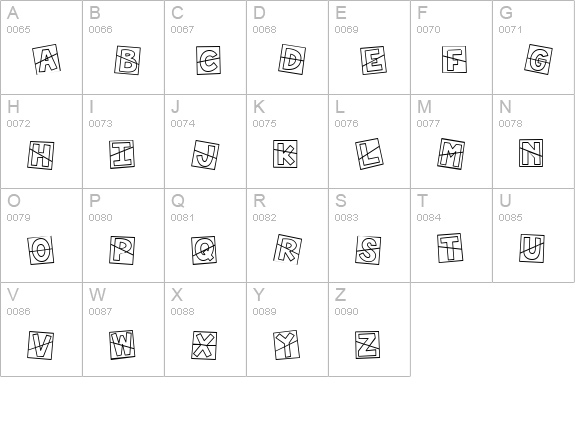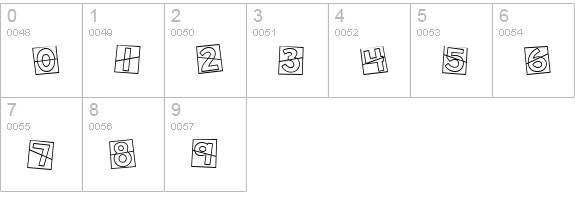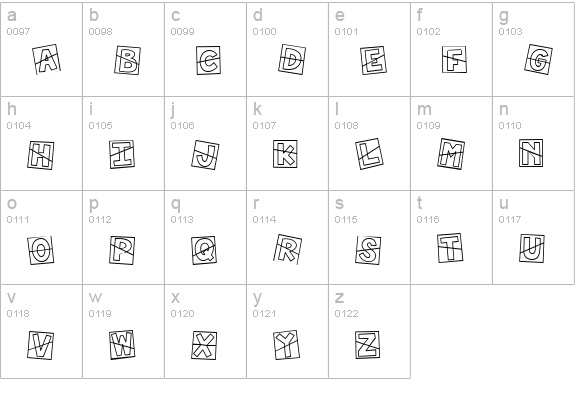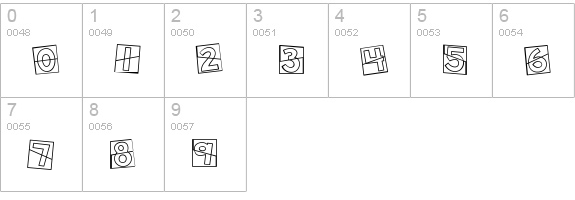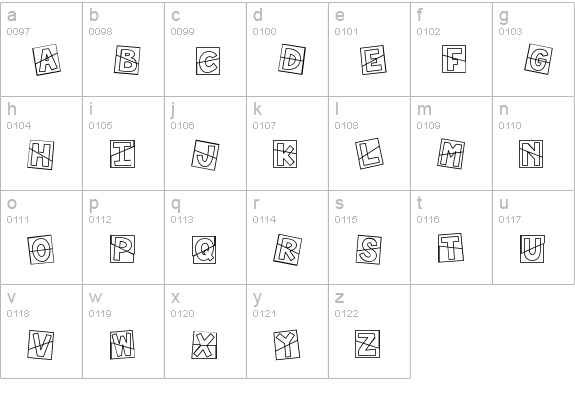
CK Split Box Font Details
Introducing the exquisite CK Split Box font - a versatile and modern typeface that will surely make your designs stand out! With its unique split box design, this font exudes a sense of creativity and sophistication. The clean lines and sharp edges of each letter give a sleek and contemporary look to any project. The best part? CK Split Box font is completely free to download at FontsMarket.com! That's right, you can elevate your designs without breaking the bank. Whether you're working on branding, packaging, posters, or any other creative project, this font is sure to make a statement. Don't miss out on the opportunity to add this stunning font to your collection. Download CK Split Box font today and let your creativity soar!